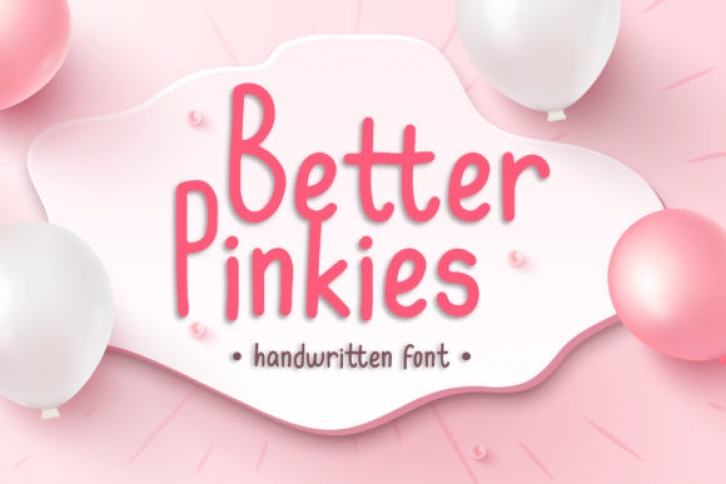
Better Pinkies is a sweet and friendly handwritten font. Its natural and unique style makes it incredibly fitting to a large pool of designs. The only limit is your imagination!